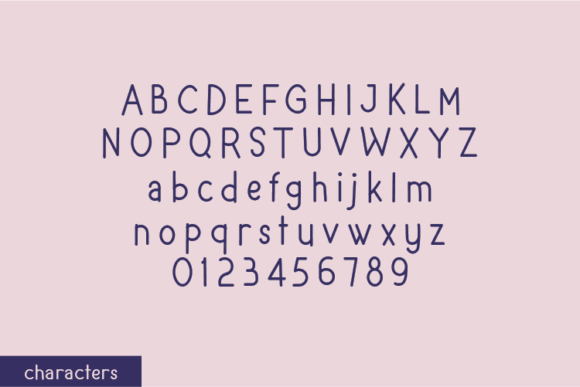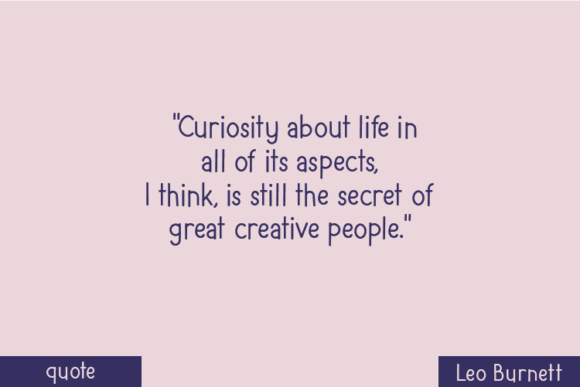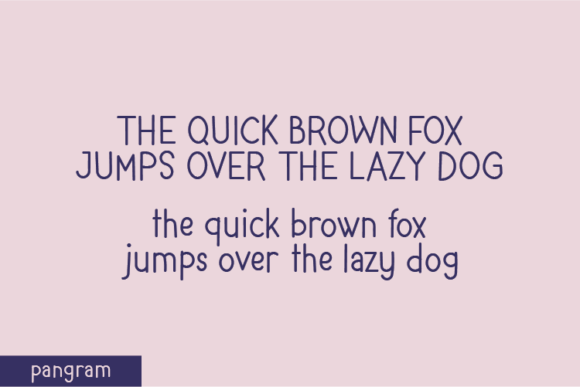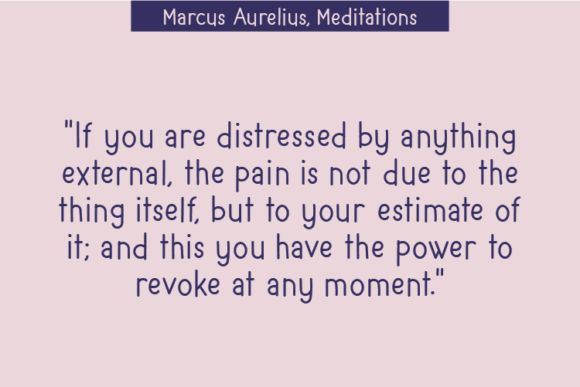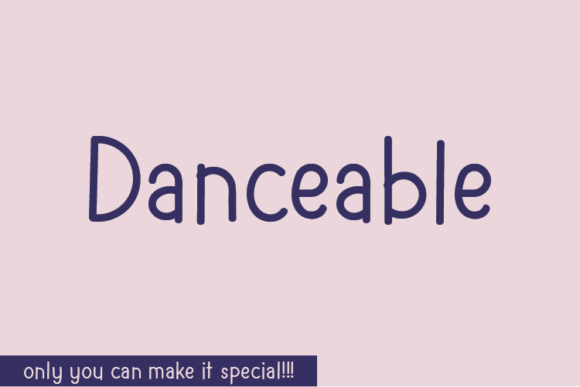
Danceable Font: The Unique and Playful Choice for Designers and Crafters
Are you tired of using the same old fonts in your designs? Look no further than the Danceable Font, a natural handwritten font that is sure to add a touch of personality to your projects. What sets Danceable apart from other fonts is its unique approach to character design – not a single node in each character’s indentation has been changed, making it a truly one-of-a-kind font.
The Story Behind Danceable Font
Danceable Font is a handcrafted font that has been carefully designed to bring a sense of playfulness and whimsy to your designs. The font’s creator has taken a meticulous approach to crafting each character, ensuring that every detail, from the subtle variations in line width to the careful placement of each node, is authentic and true to the original handwritten script.
This attention to detail is what makes Danceable Font so special. Unlike other fonts that have been created using automated tools or algorithms, Danceable has been crafted with love and care, giving it a unique and human touch that is hard to find in digital fonts.
What Makes Danceable Font So Special?
So, what makes Danceable Font so special? Here are just a few of the features that set it apart:
- Natural and Handwritten: Danceable Font is a truly handwritten font, with all the quirks and imperfections that make it feel so natural and authentic.
- Unique Node Design: The font’s creator has taken a meticulous approach to node design, ensuring that every character has a unique and consistent feel.
- No Alterations: Not a single node in each character’s indentation has been changed, making Danceable Font truly one-of-a-kind.
- Perfect for Quotes and Notes: The font’s playful and whimsical feel makes it perfect for use in quotes, notes, and other designs where you want to add a touch of personality.
Using Danceable Font in Your Designs
Danceable Font is a versatile font that can be used in a wide range of designs, from t-shirts and mugs to posters and social media graphics. Here are just a few ideas for using Danceable Font in your designs:
- Quotes and Inspirational Sayings: Use Danceable Font to add a touch of personality to your quotes and inspirational sayings.
- T-Shirts and Apparel: The font’s playful feel makes it perfect for use on t-shirts, hoodies, and other apparel.
- Notes and Journaling: Use Danceable Font to add a touch of whimsy to your notes and journaling.
- Product Design: The font’s unique feel makes it perfect for use in product design, from packaging to product labels.
Tips for Getting the Most Out of Danceable Font
Here are just a few tips for getting the most out of Danceable Font:
- Experiment with Different Sizes: Danceable Font looks great in a range of sizes, from small and delicate to large and bold.
- Play with Color: The font’s playful feel makes it perfect for use with bright, bold colors.
- Mix and Match with Other Fonts: Try pairing Danceable Font with other fonts to create a unique and eye-catching design.
In conclusion, Danceable Font is a unique and playful font that is sure to add a touch of personality to your designs. With its natural and handwritten feel, unique node design, and versatility, it’s the perfect choice for designers and crafters looking to create something truly special. So why not give Danceable Font a try today and see the difference it can make in your designs?